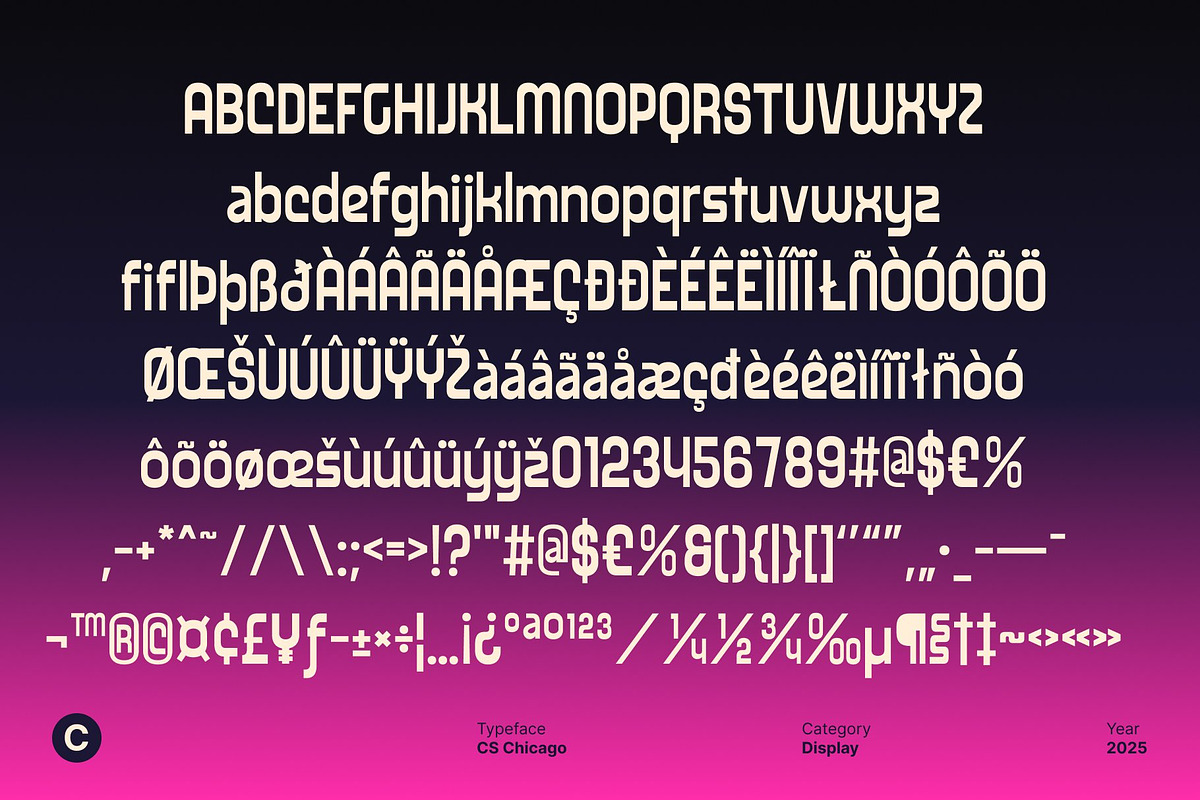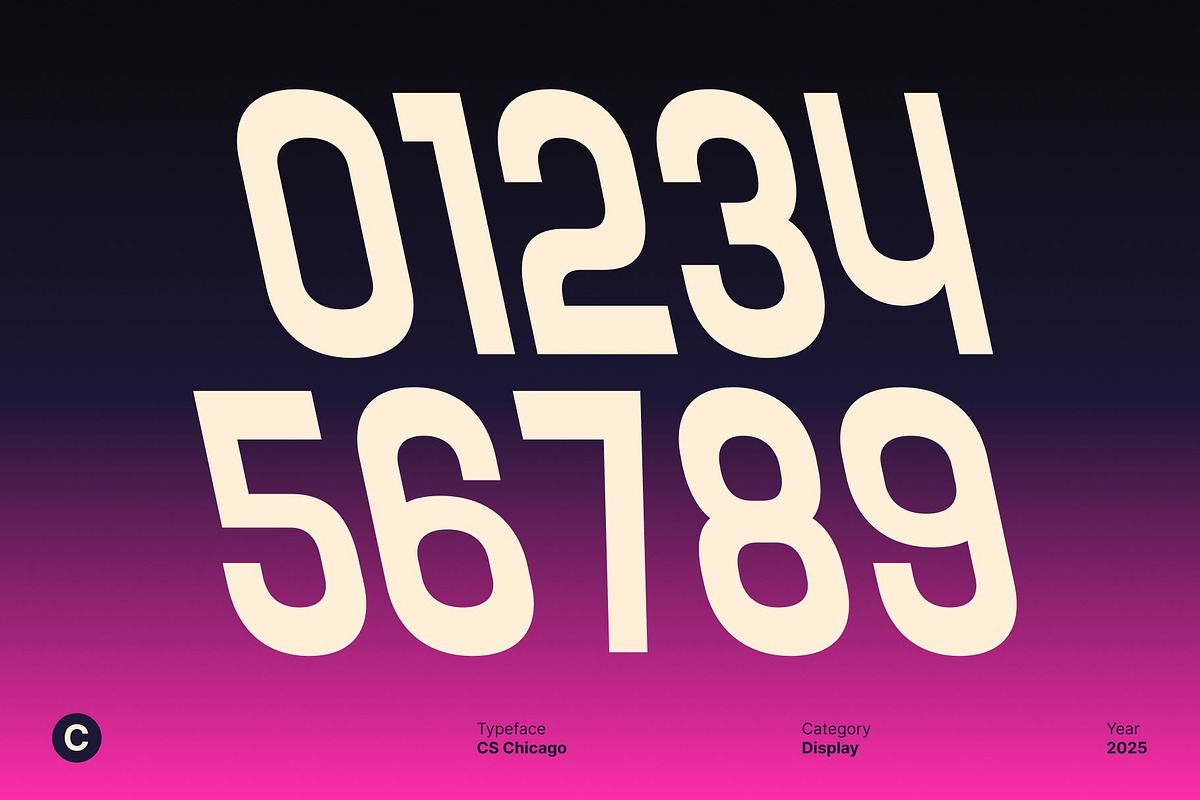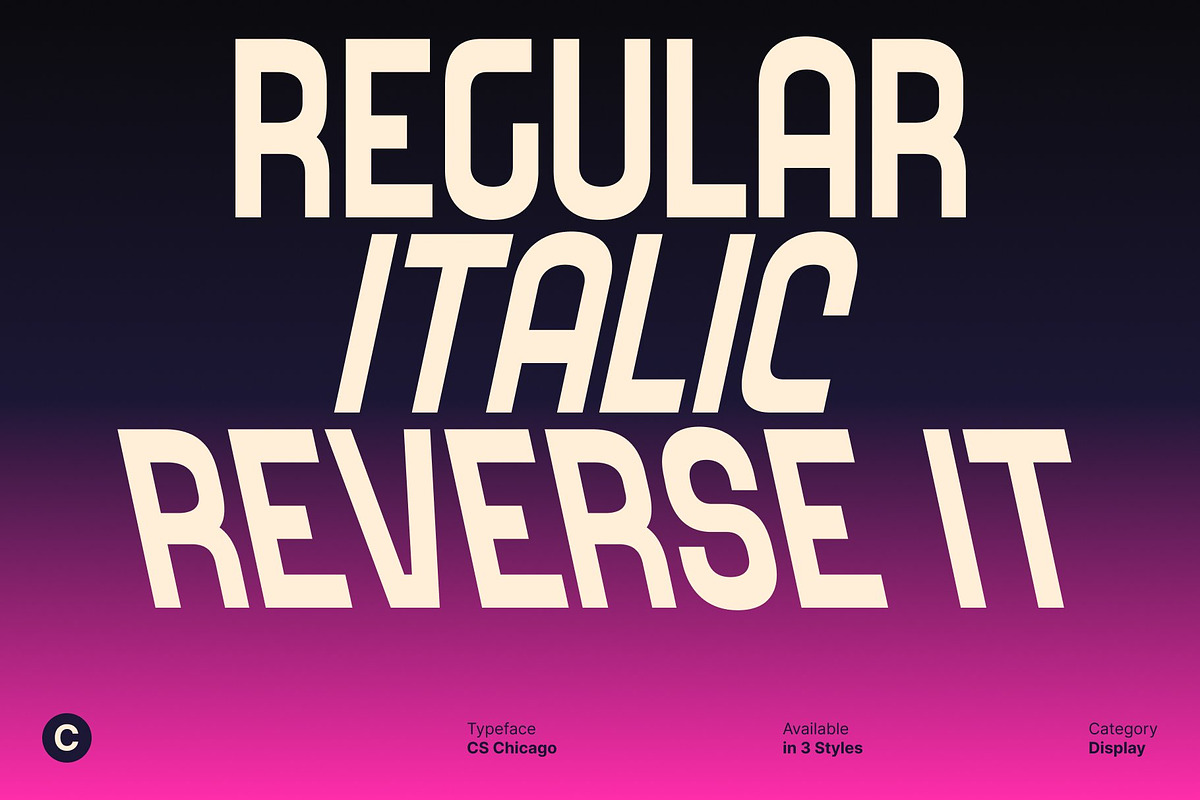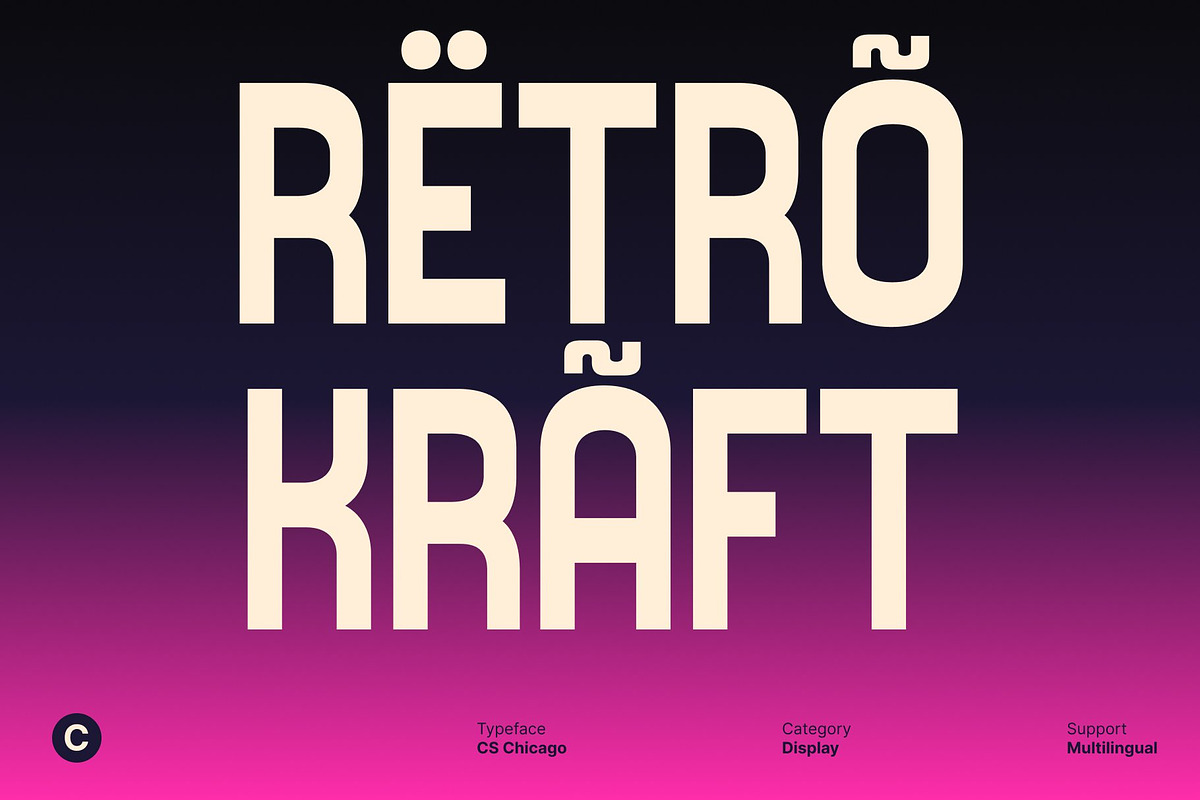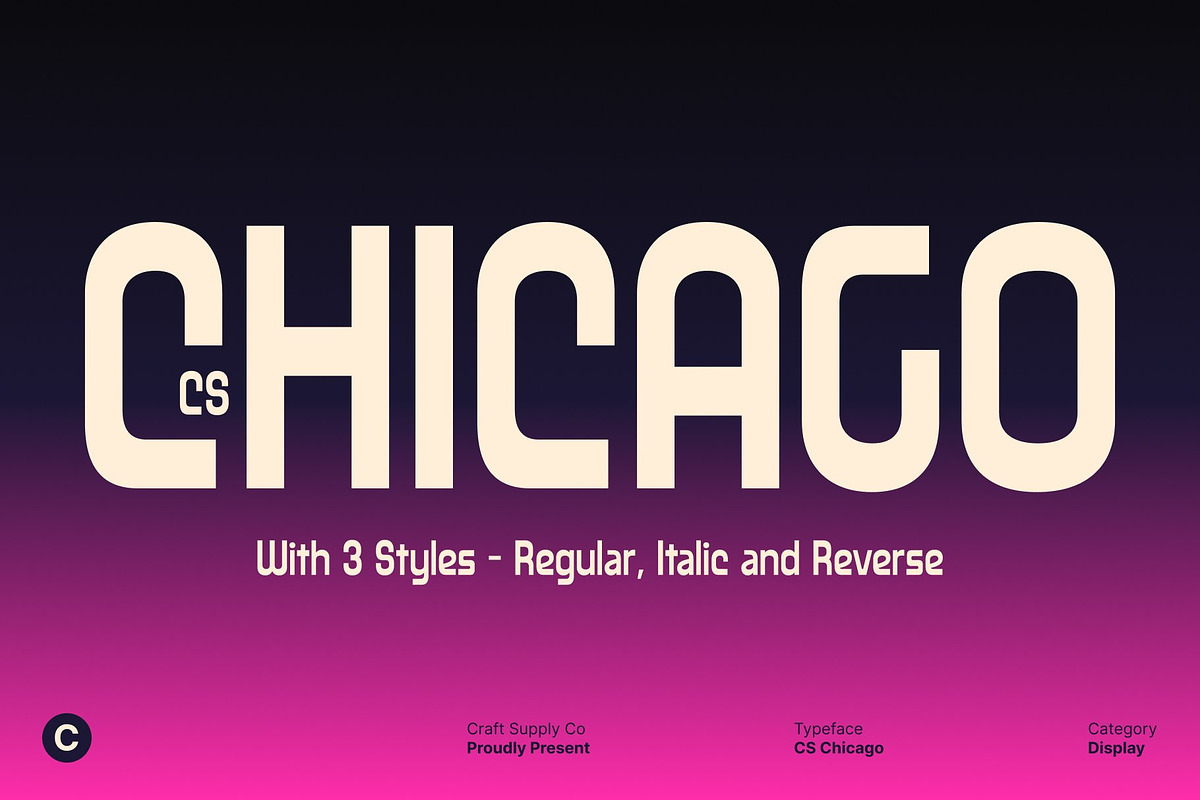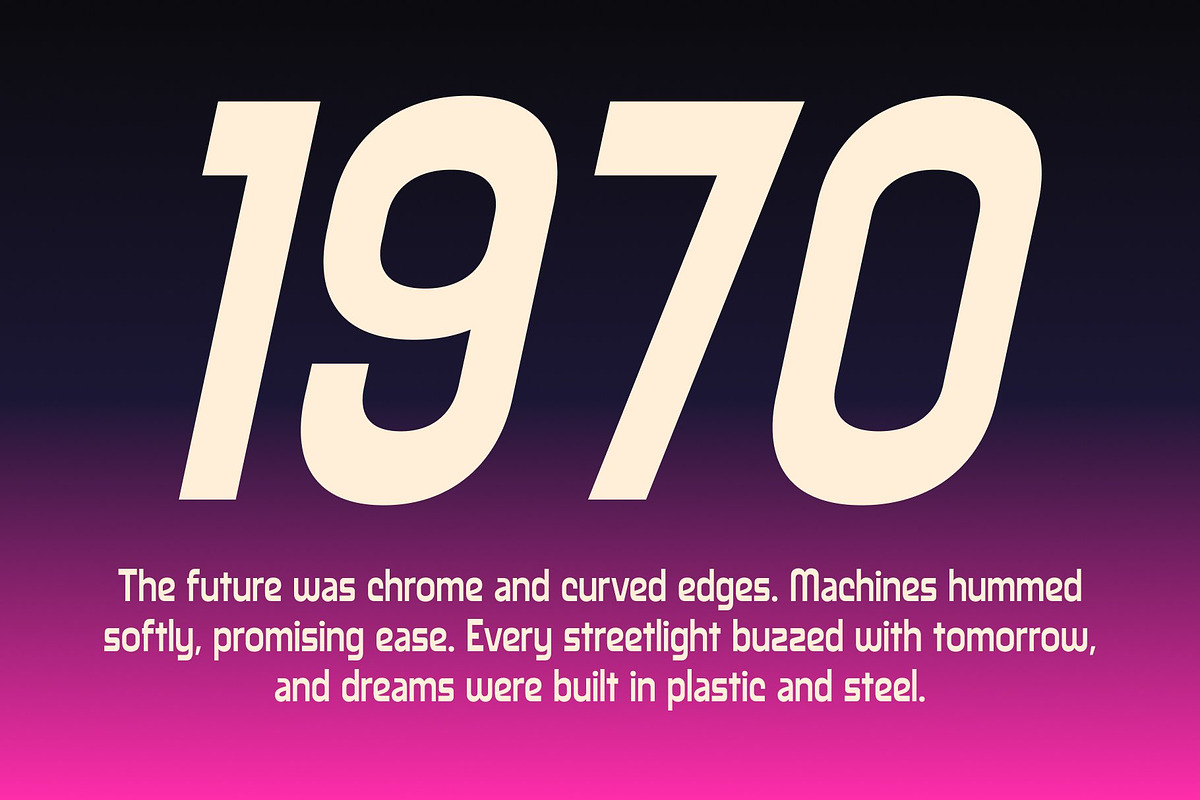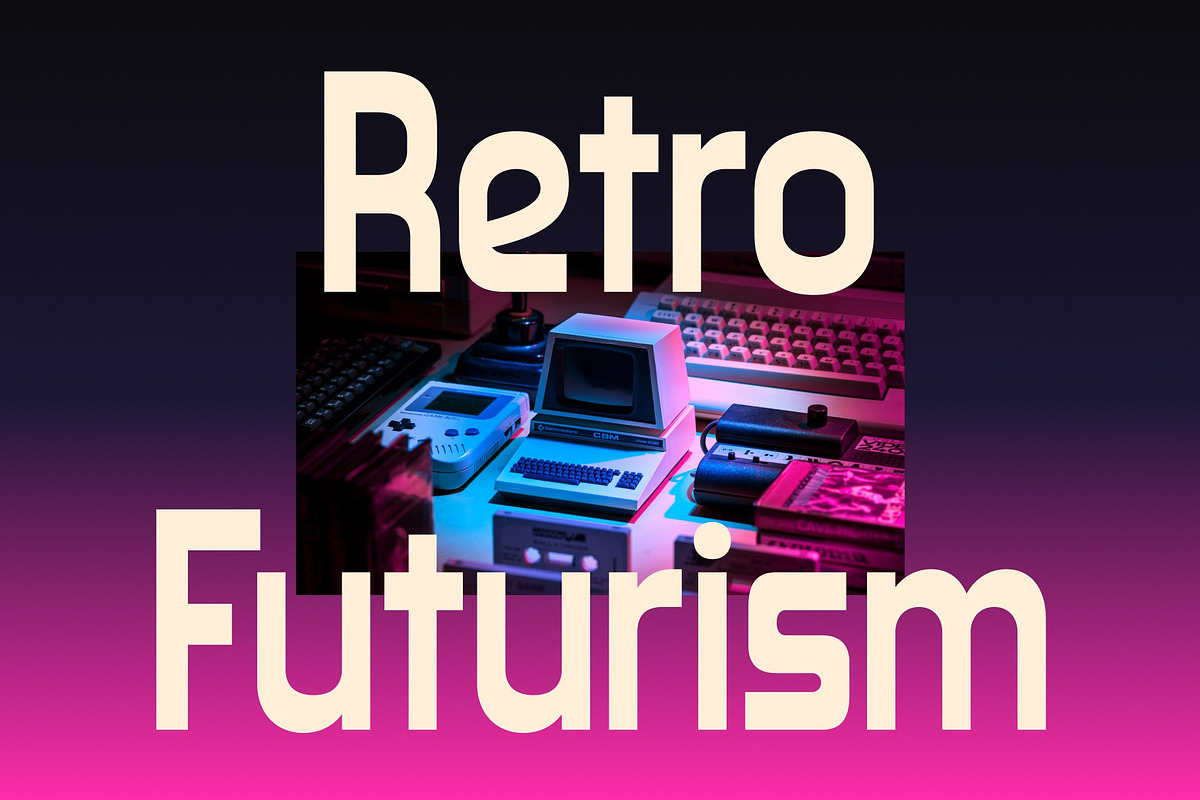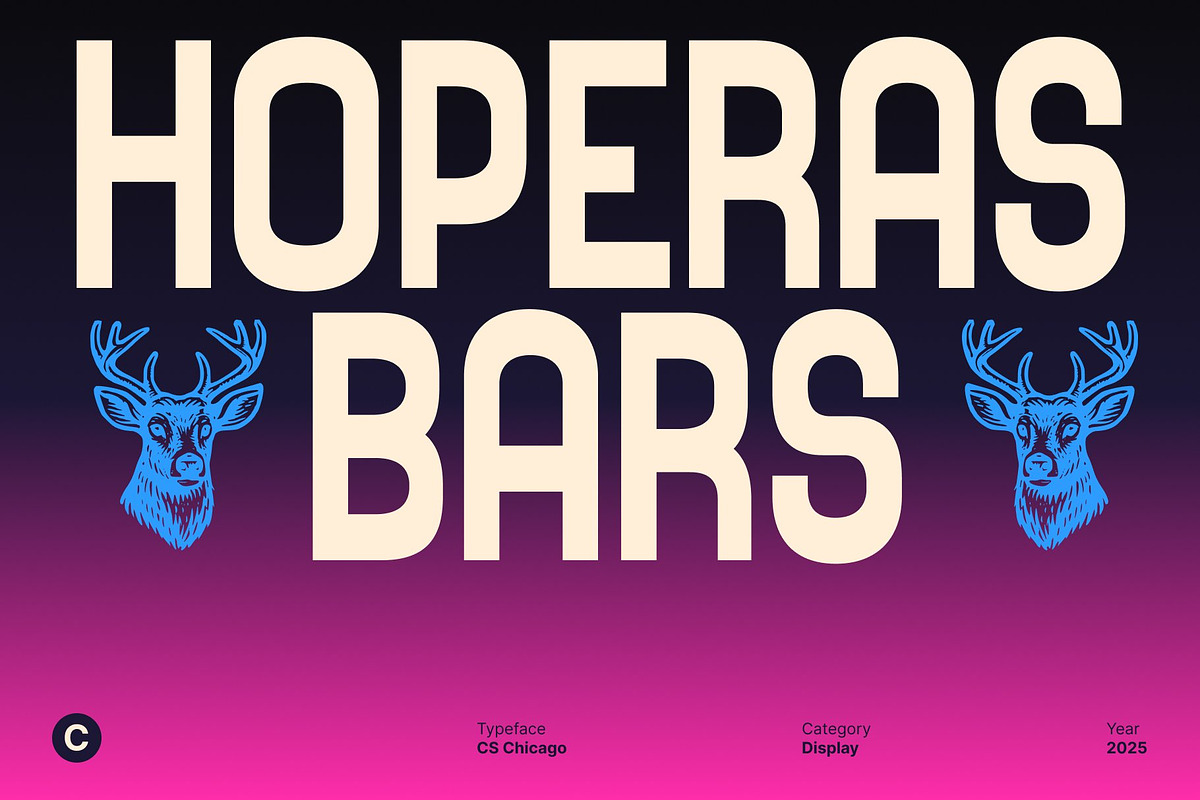
CS Chicago – Modern Sans Serif
CS Chicago – Where Retro Vibes Meet Techno Energy
Modern Display Sans Serif with Futuristic Flair This is an edgy and sleek display sans serif font that merges the cool sophistication of modern design with the nostalgic rhythm of retro aesthetics. Inspired by techno culture and digital-era graphics, this font delivers a sharp, dynamic presence that feels both futuristic and timeless.
Techno Structure with Retro Soul Balancing geometric strength with subtle retro undertones, this font captures the essence of motion and rhythm. Its bold shapes and smooth flow make it perfect for designers seeking a font that bridges past and future. The combination of techno inspired design and classic structure gives this font a distinctive identity both stylish and memorable.
Perfect for Branding and Visual Impact This font thrives in contemporary visual projects such as branding, logos, and poster designs. Its sleek form and commanding presence make it ideal for high impact compositions that need a sense of energy and sophistication. Whether for tech startups, music festivals, or creative studios.
Stylish, Bold, and Distinctly Modern With its seamless blend of modern precision and retro charm, this font stands out as a versatile choice for forward-thinking designers. It’s more than just a typeface it’s a visual rhythm that captures the pulse of modern creativity. Use this font to make your designs shine with futuristic style and nostalgic confidence.